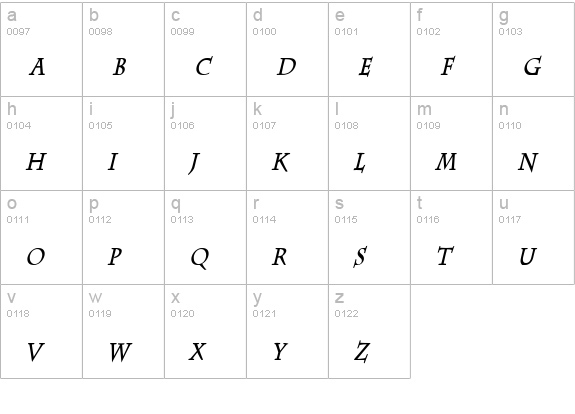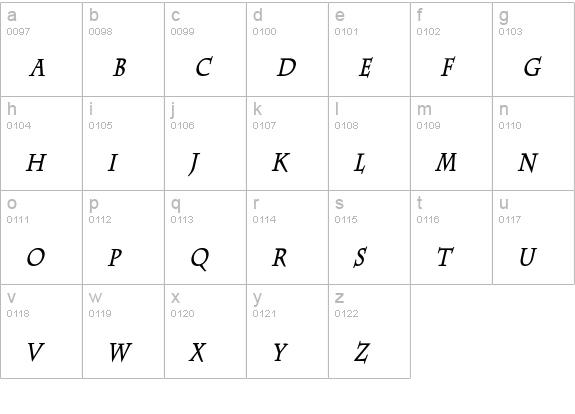
Chaz Thin Bold Italic Font Details
Chaz Thin Bold Italic is a delicate, low-contrast, italic variant in the Chaz typeface family \xE2\x80\x94 well suited to fashion editorial, minimal branding, and high-contrast display.
Chaz Thin Bold Italic is a sleek and sophisticated font that exudes elegance and style. Its thin, bold, and italicized design offers a unique and modern twist to traditional typography. Perfect for adding a touch of flair to any project, whether it's a logo, branding materials, or website design. What sets Chaz Thin Bold Italic apart is not only its striking appearance but also the fact that it is available for free download at FontsMarket.com. This means that you can enhance your designs with this stunning font without having to worry about any additional costs. Embrace the creativity and versatility of Chaz Thin Bold Italic and take your projects to the next level with this eye-catching typeface.